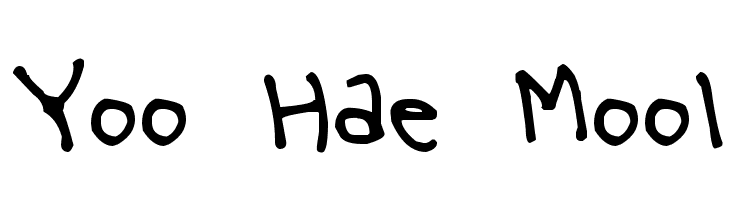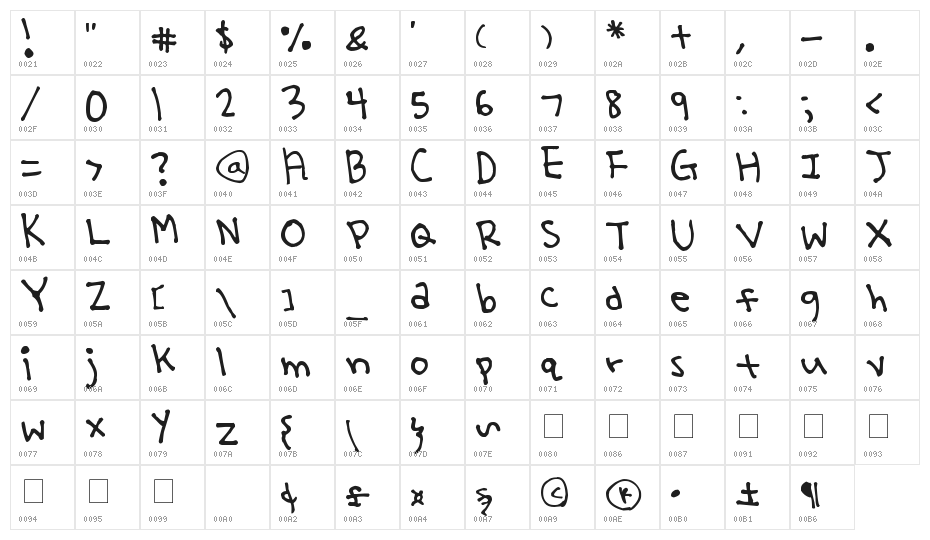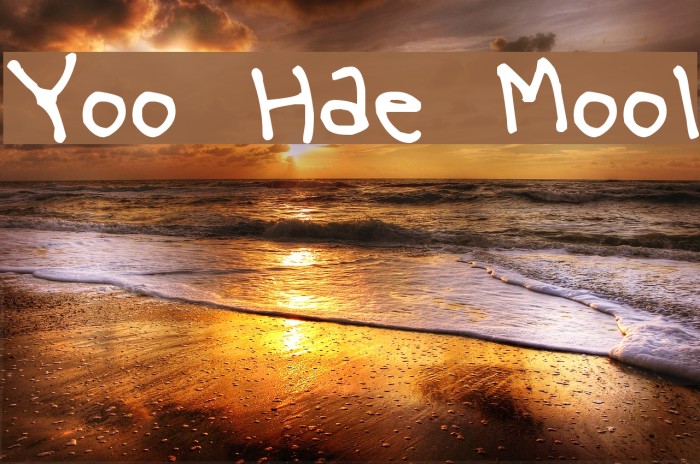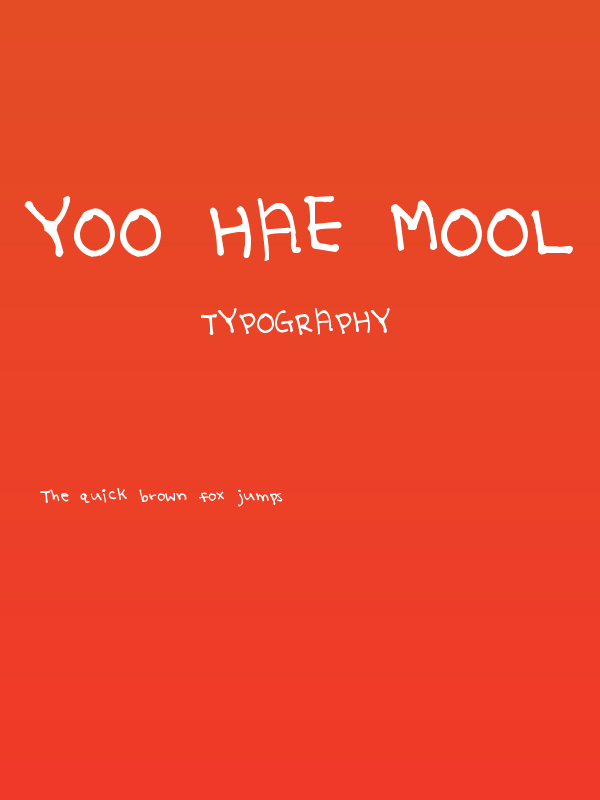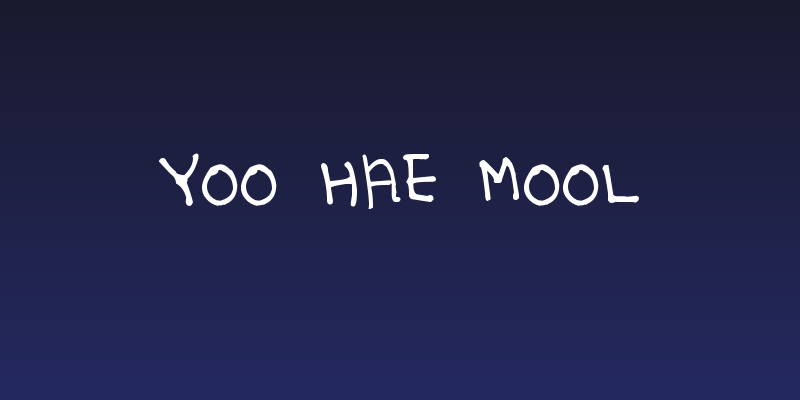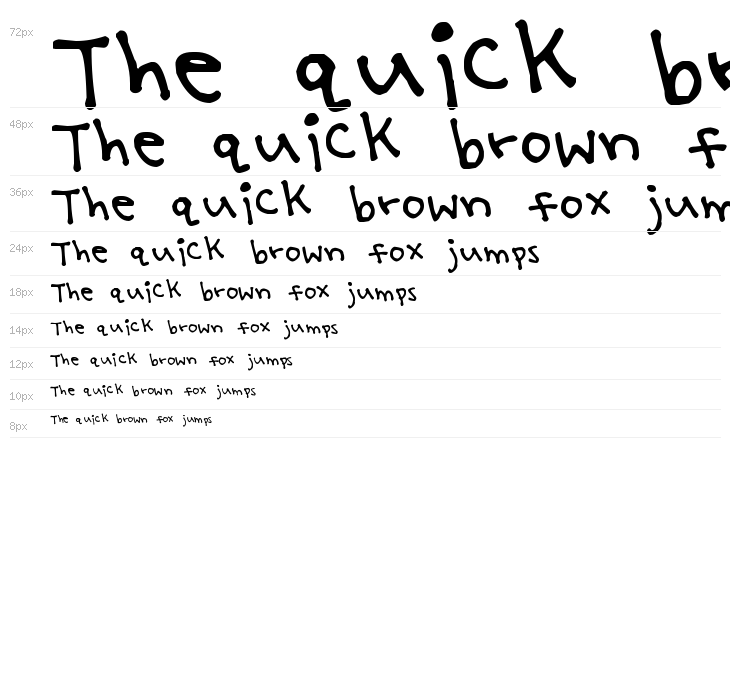
Yoo Hae Mool Font
Yoo Hae Mool Description
This font features a playful and casual handwritten style, characterized by its irregular strokes and slightly uneven baseline. The letters have a whimsical appearance, with varying thickness that adds to its charm. The uppercase and lowercase letters maintain a consistent style, while the numerals and special characters complement the overall look. The font's informal nature makes it suitable for creative and fun projects, offering a personal touch that mimics natural handwriting.